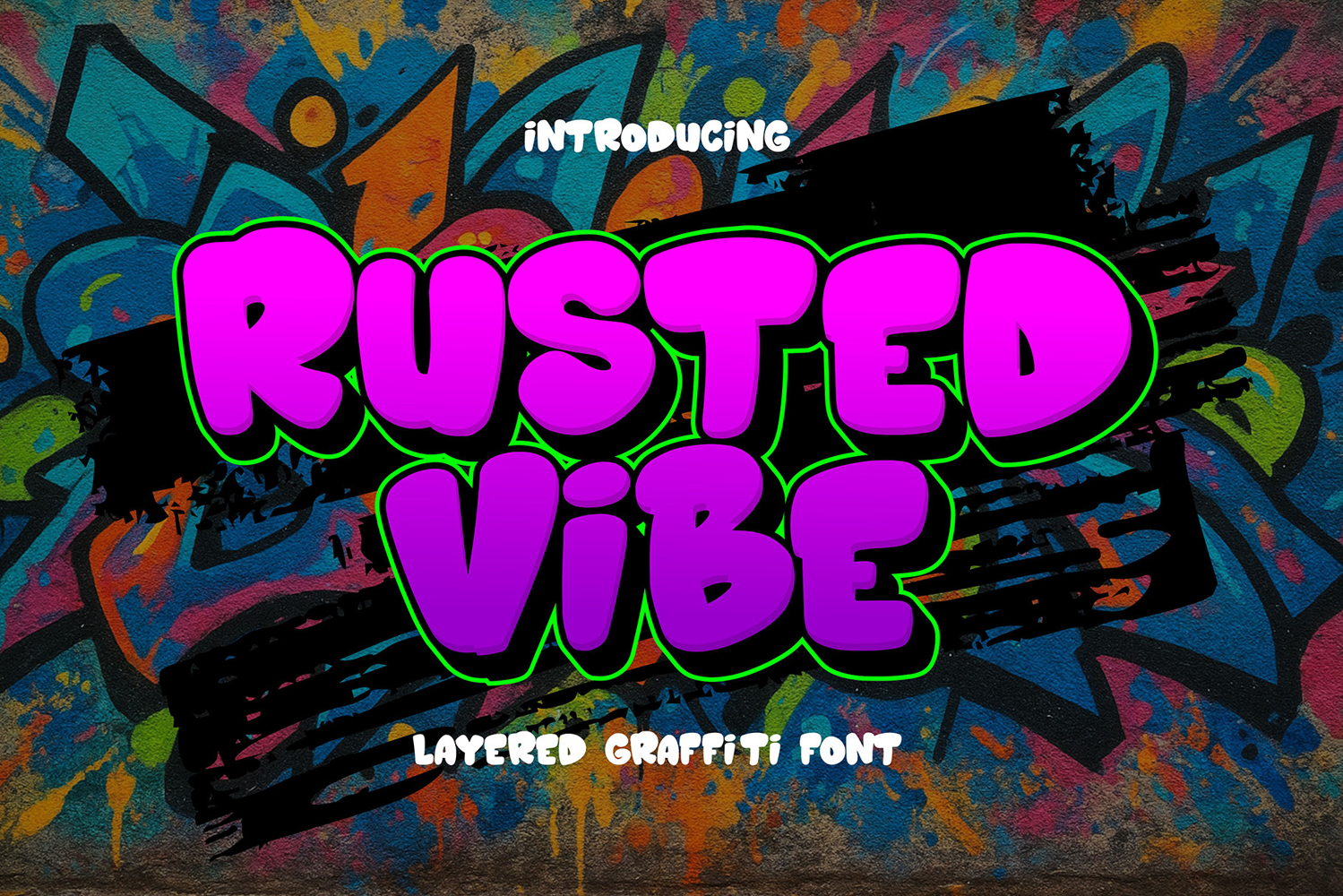
Rusted Vibe | Layered Graffiti Typeface
Rusted Vibe - Shadow
Rusted Vibe
Rusted Vibe - Inner
Rusted Vibe is a layered graffiti font that combines bold bubble lettering with playful urban energy. Designed for designers who want to bring colorful depth and strong personality into their projects, Rusted Vibe features a layered system that allows you to stack styles and create endless combinations of colors, shadows, and highlights. Perfect for posters, youth apparel, social media graphics, streetwear branding, logos, hip-hop flyers, and comic-inspired artwork, this typeface comes with uppercase, lowercase, numerals, punctuation, multilingual support, and alternates. With OTF and TTF formats included, it’s fully compatible with major design software such as Adobe Illustrator, Photoshop, InDesign, CorelDRAW, and Affinity Designer. Rusted Vibe is your go-to tool for fun, bold, and standout typography.